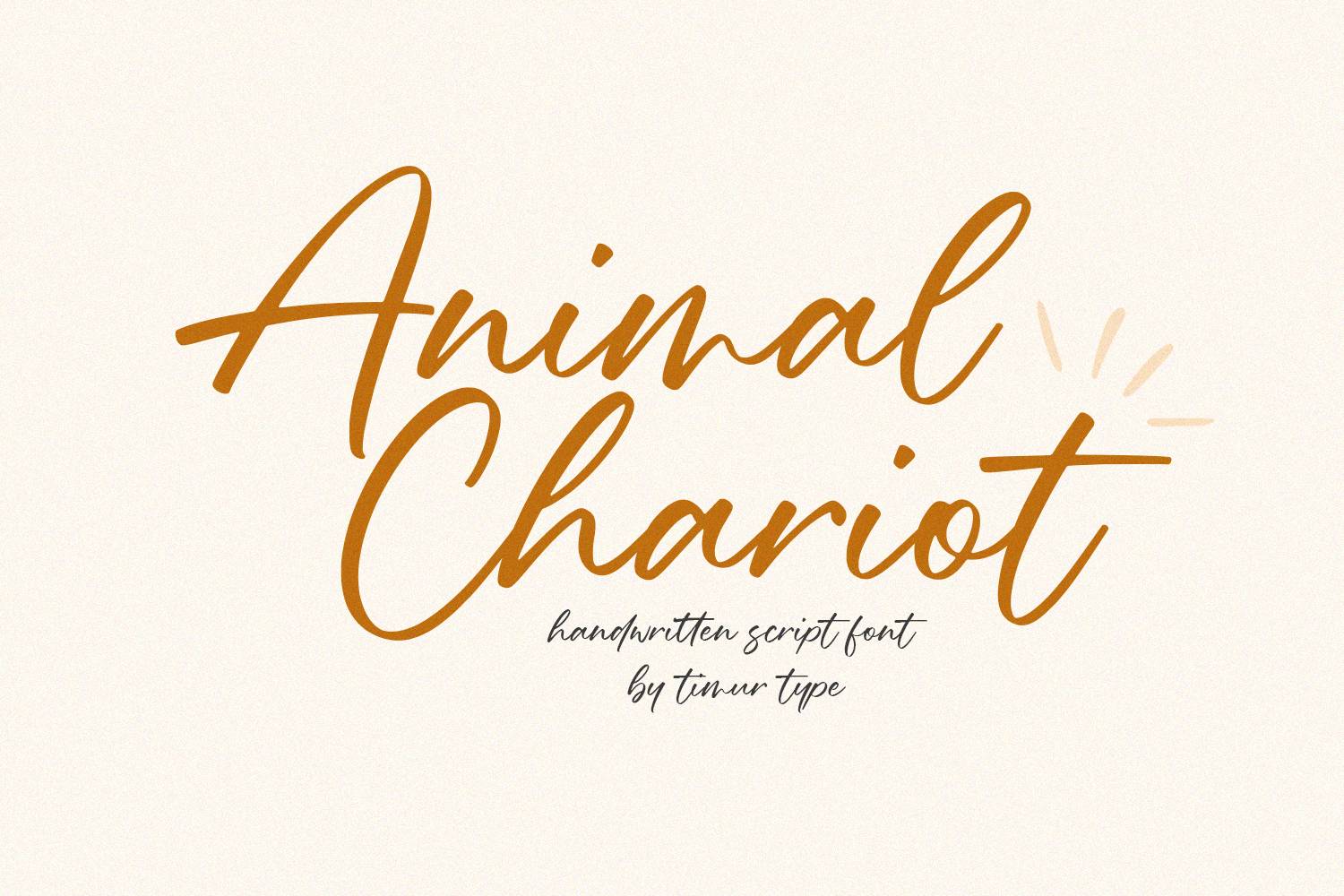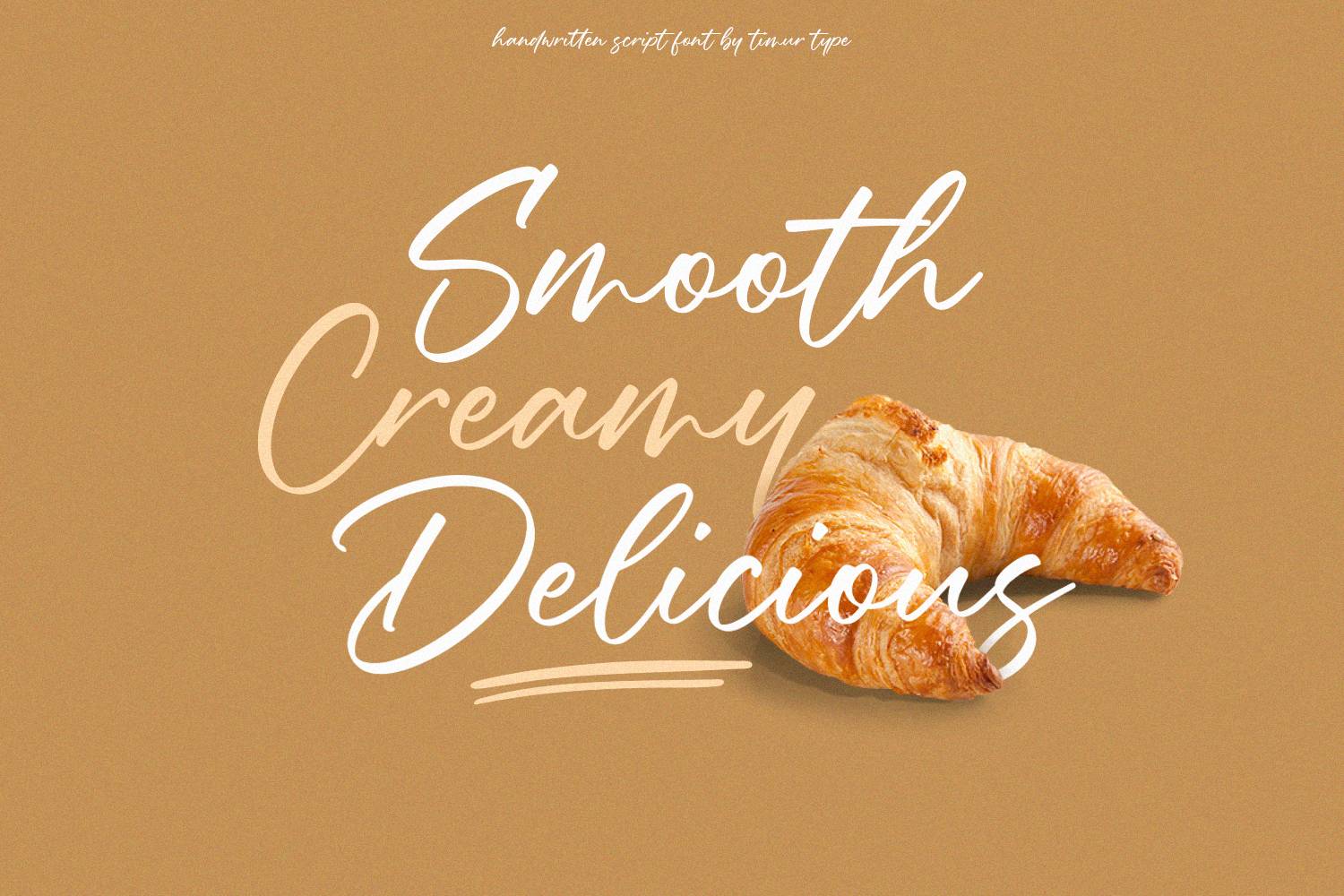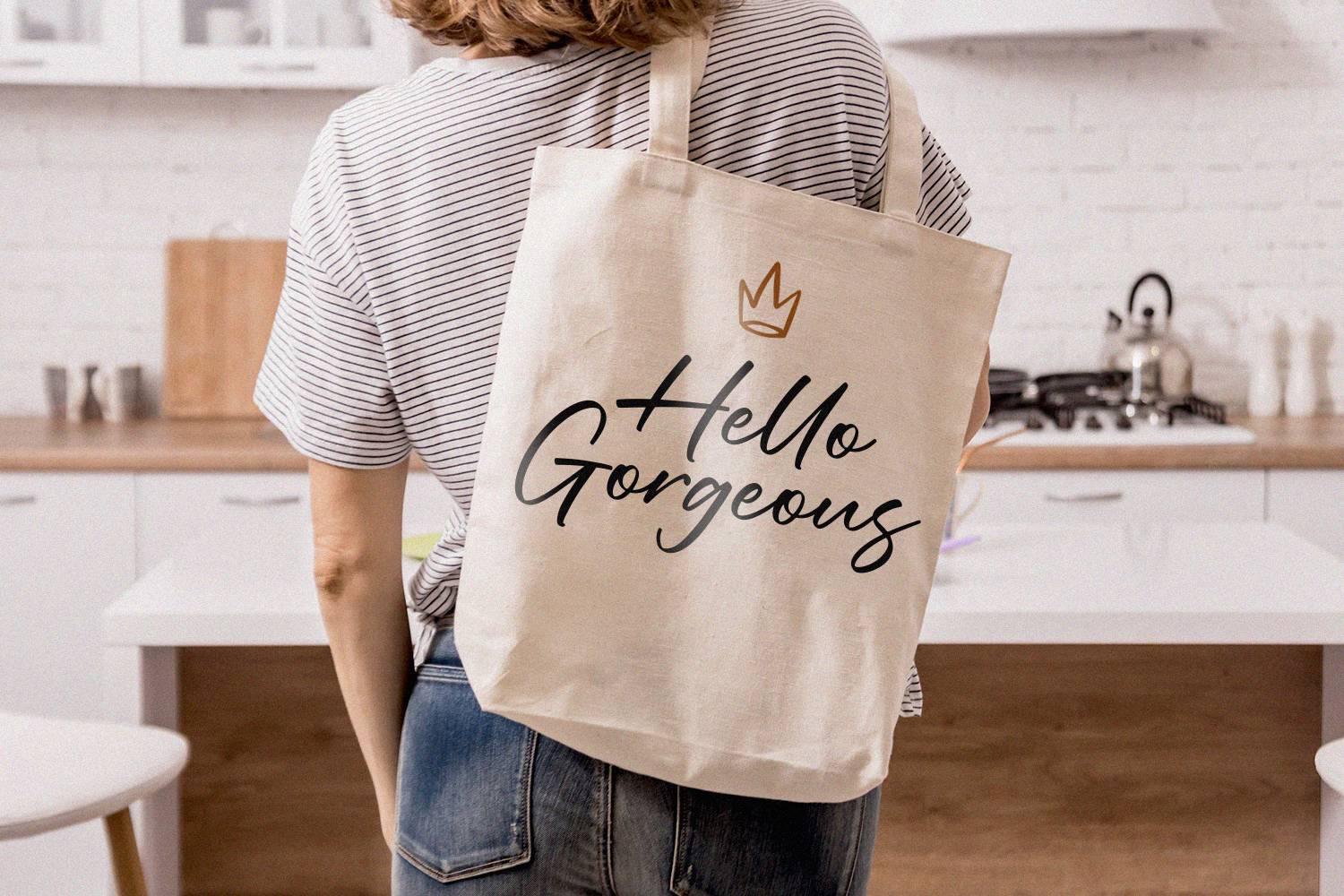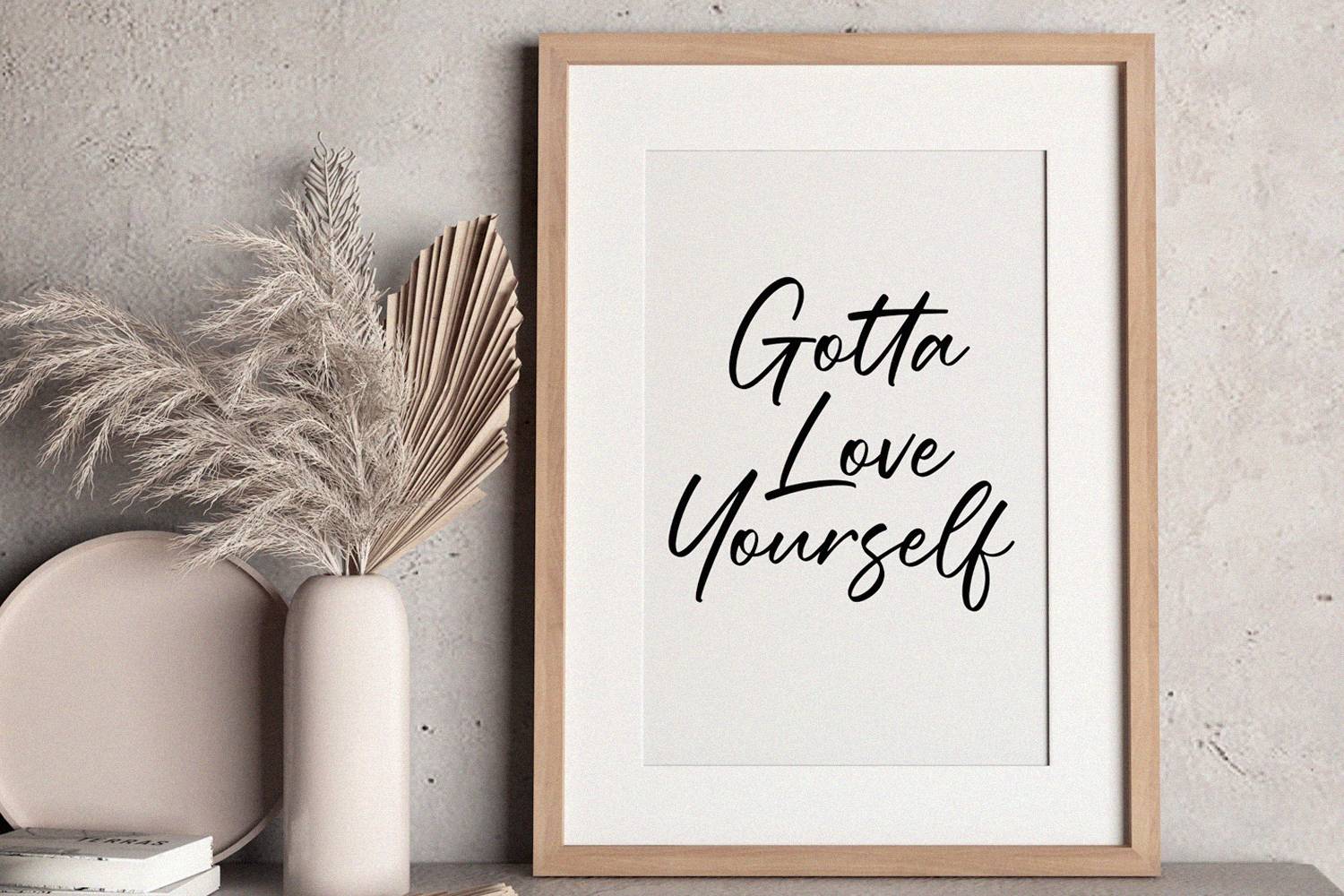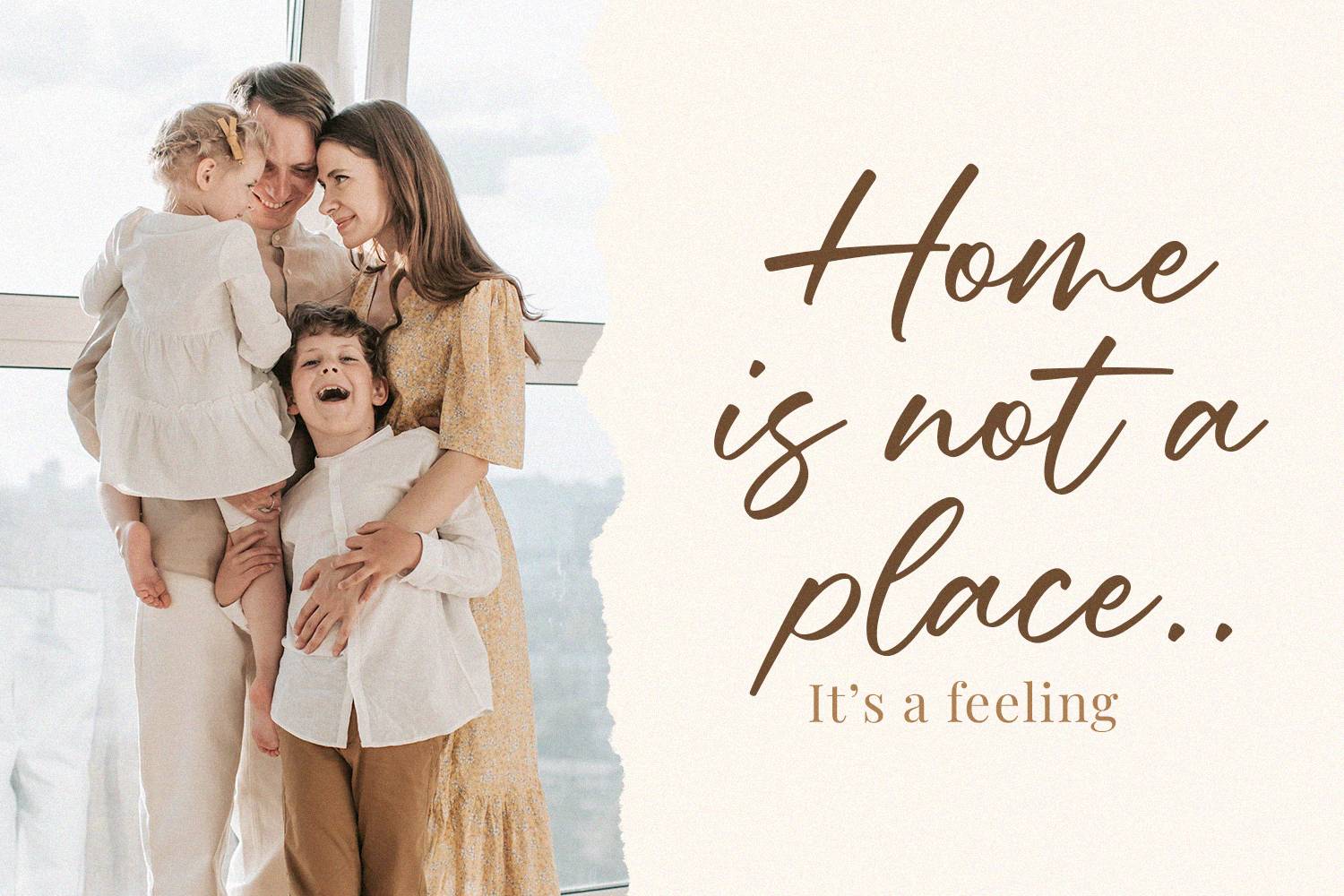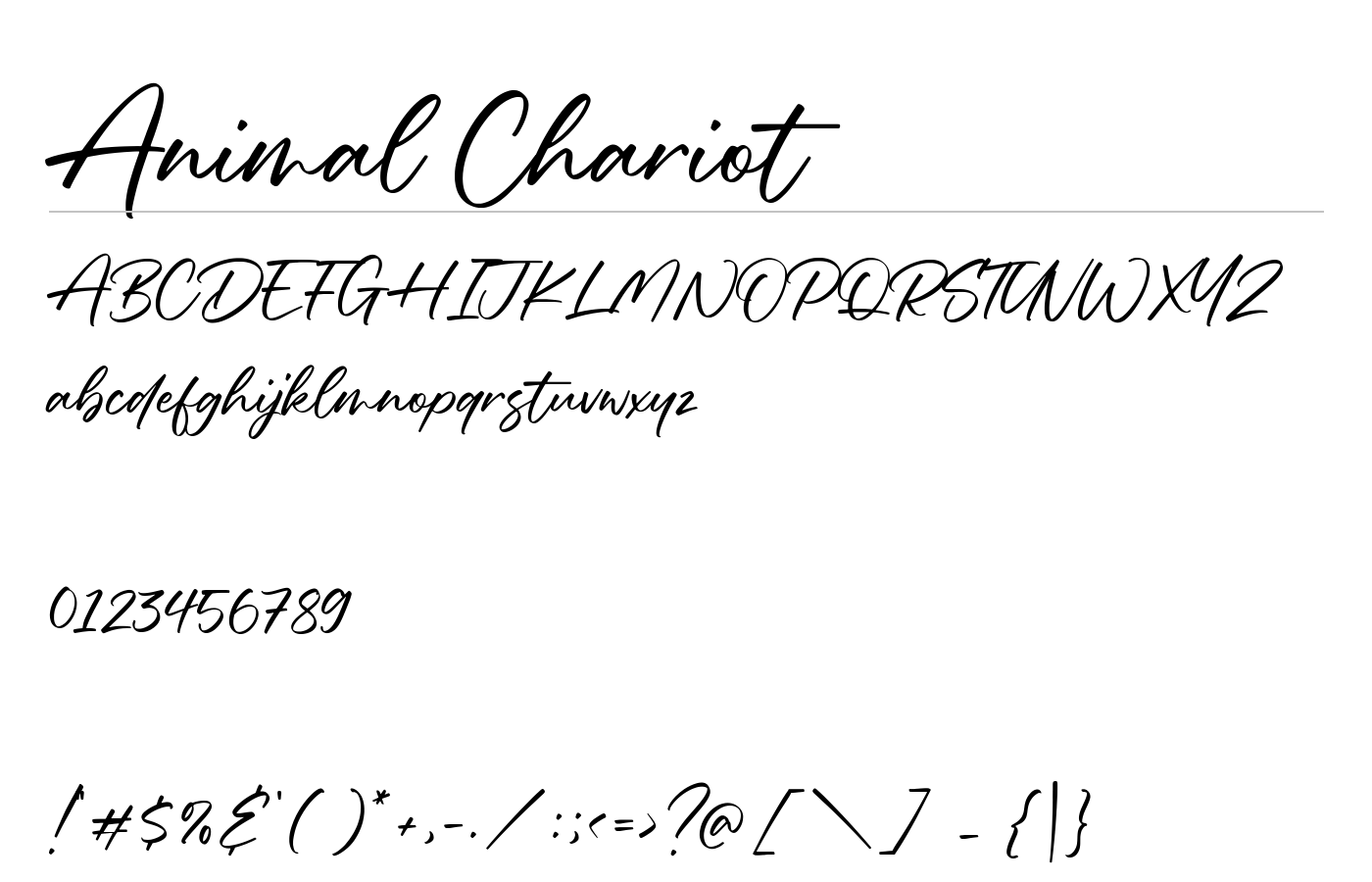
Animal Chariot is a stylish script font with a lively, flowing design that feels both elegant and approachable. Its smooth, handwritten strokes and slender letterforms make it ideal for creative projects needing a personal, graceful touch, such as invitations, branding, or logos that seek a sophisticated yet friendly vibe. This font works well where a natural, artistic expression is desired without sacrificing readability.
Animal Chariot Font
About Animal Chariot Font